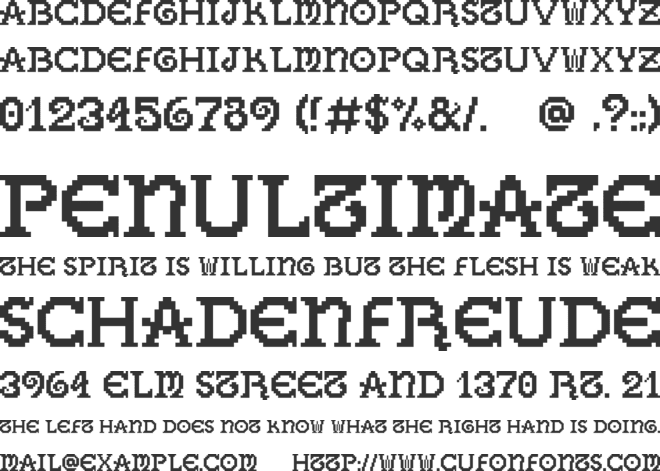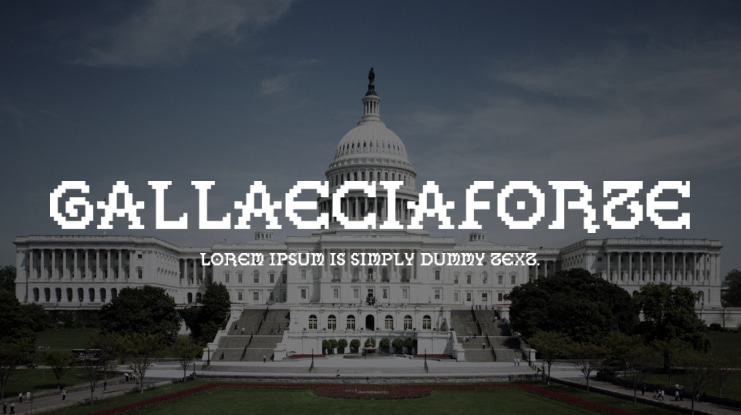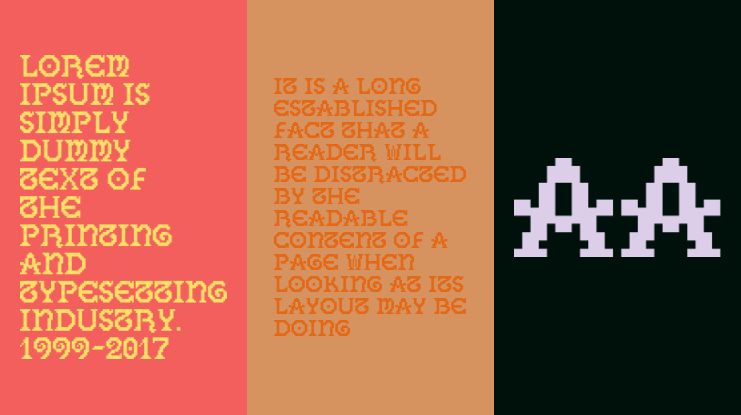
GallaeciaForte Font
[][][] GALLAECIA FORTE [][][]
Made by David Calviño
Gallaecia Forte is a pixel adaptation of the Gallaecia Castelo Font, originally designed by Carlos Nuñez. It's an AllCaps font, 100% free for personal and commercial use. Although not necessary, mentions are welcome.
Por David Calviño
Gallaecia Forte é unha adaptación a estilo pixel da tipografía Gallaecia Castelo deseñada por Carlos Nuñez. É unha tipografía AllCaps con licencia gratuita para usos tanto personais como comerciais. Aínda que non é obrigatoria, a mención é de agradecer.